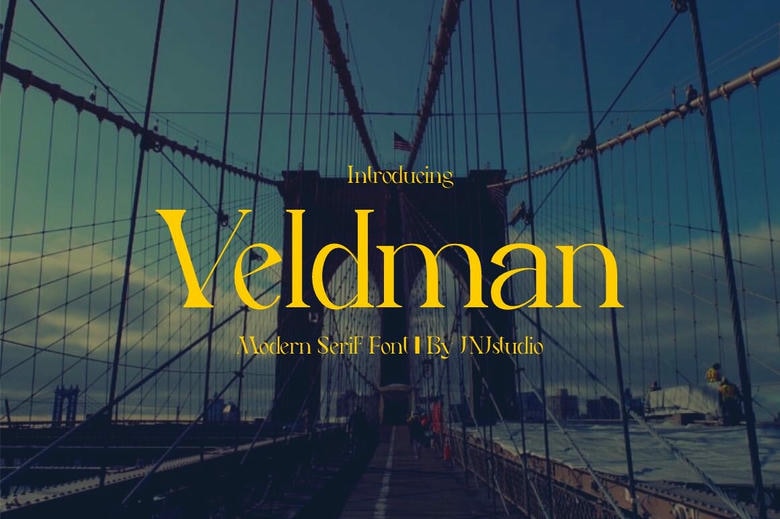
Veldman Font
Veldman is a striking Display Serif font characterized by its bold, elegant letterforms. The font combines classic serif elements with a modern twist, making it perfect for headlines, posters, and branding that require a touch of sophistication and impact. Veldman is versatile and commands attention, whether used in digital or print media.
Veldman Serif Font